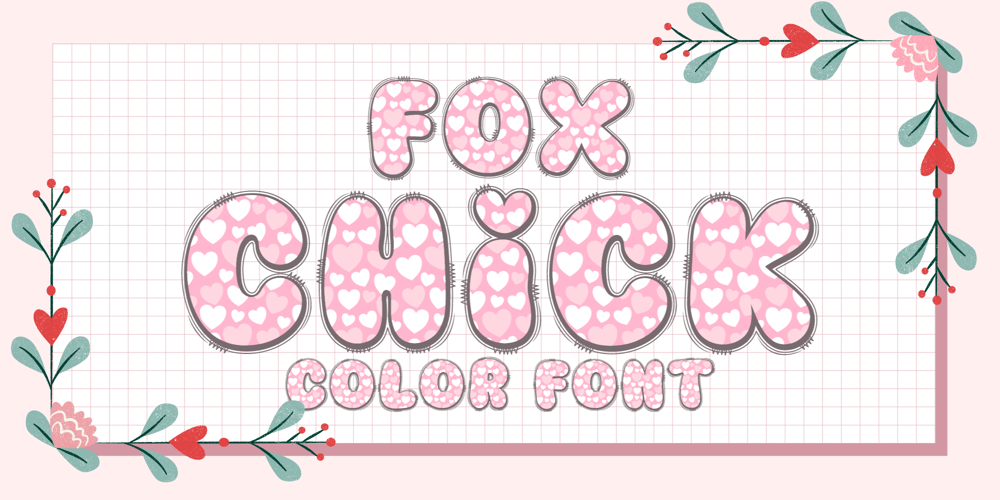
Fox Chick Font Family was designed by Rattana Rattanawan and published by Fox7. Fox Chick contains 1 styles and family package options. Fox Chick is a cute and fun color font. This font is your go-to for crafting cute greeting cards that express affection and warmth. Fall in love with its authentic feel and use it to create gorgeous invitations, beautiful stationary art, eye-catching social media posts, and cute greeting cards. Learn more about color font support on third-party apps here: https://www.colorfonts.wtf/๐บ๐บ Please note that the Canva do not support color fonts! ๐บ๐บ